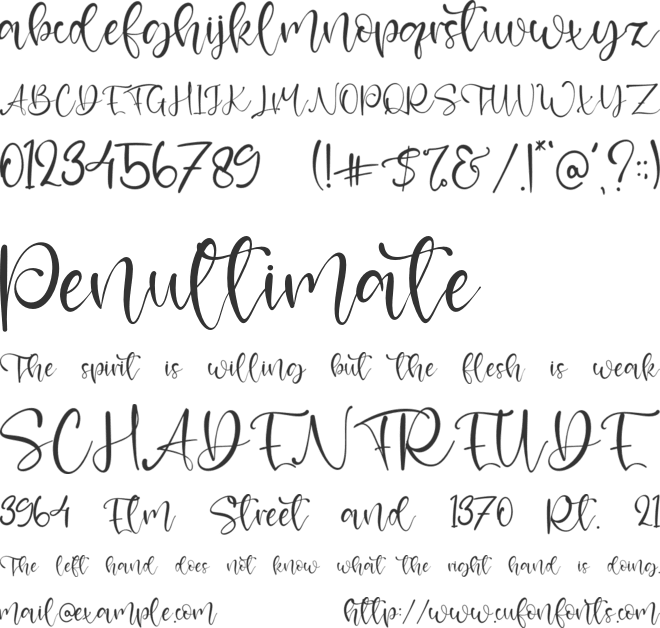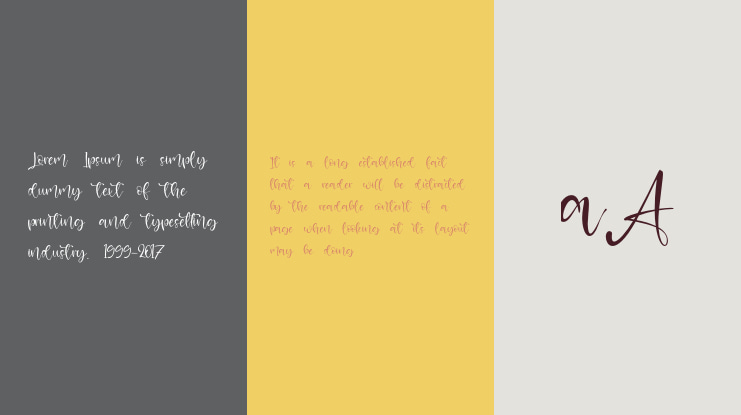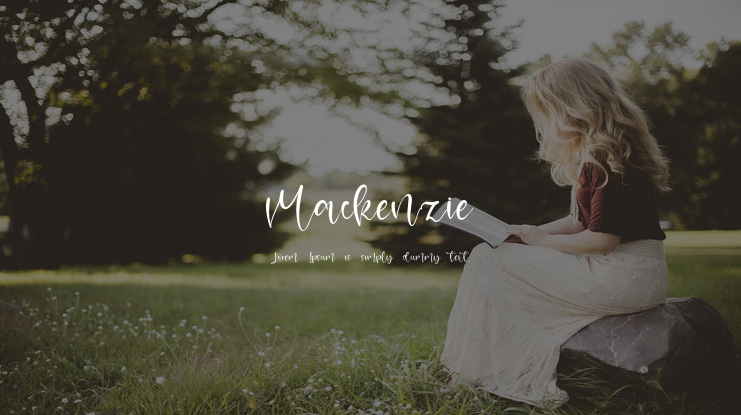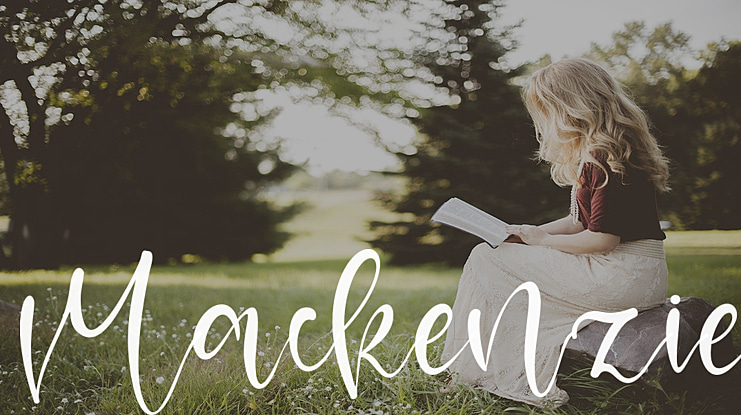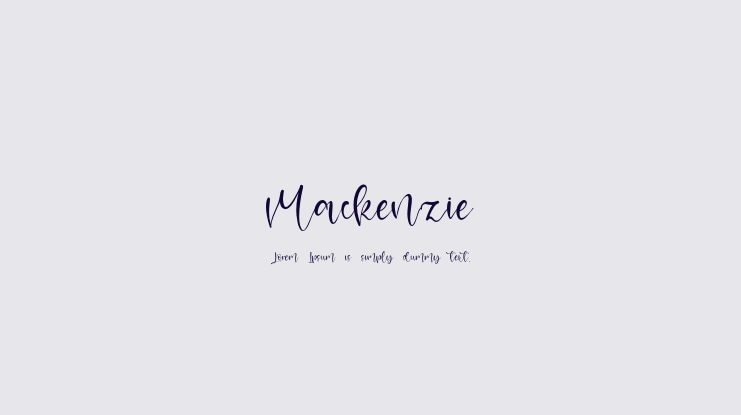
Mackenzie Font
Mackenzie A Elegant Script Font, A collection of letters and numbers suitable your projects also great for Logotype, Branding Design, Logo Design, Digital Lettering Arts, T-Shirt/Apparel, Poster, Magazine, Signs, Advertising Design, and any design needs.Click our website :https://staircaselab.com/product/mackenzie/